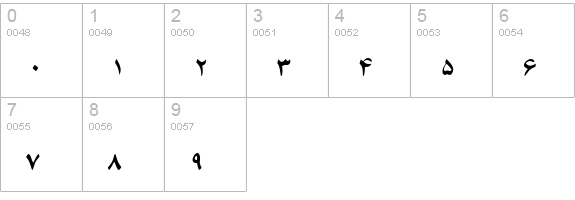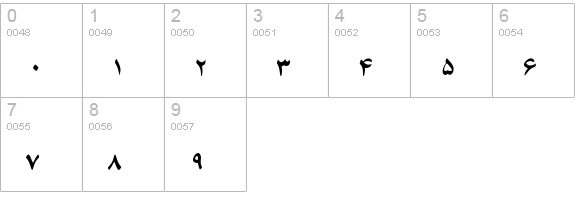
B Ferdosi Font Details
B Ferdosi font is a beautifully designed typeface that exudes elegance and sophistication. Its intricate details and unique style make it perfect for adding a touch of class to any project. This font is versatile and can be used for a wide range of design purposes, from branding to editorial design. What makes B Ferdosi font even more appealing is that it is available for free download at FontsMarket.com. This means that you can easily access this stunning font and use it in your projects without any cost. Whether you are a designer looking to elevate your work or a business owner wanting to enhance your brand identity, B Ferdosi font is a fantastic choice that won't break the bank. So go ahead and download B Ferdosi font today from FontsMarket.com and unleash its beauty and sophistication in your designs.